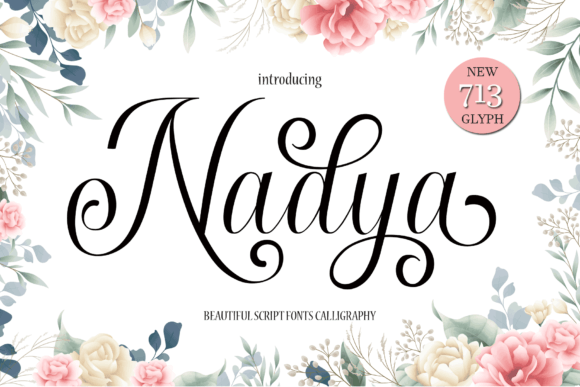
Step into the world of typography and unveil the beauty of Nadya Font, a captivating script font family destined to elevate your creative projects to remarkable heights. This elegant and classy handwritten font exudes an air of sophistication, making it the perfect choice for adding a touch of charm to your designs.
Nadya Font boasts an array of remarkable features that will ignite your imagination and inspire your creativity. Its superbly crafted characters dance across the page with effortless grace, captivating your audience with their refined beauty. Each letter is meticulously designed to ensure readability and visual appeal, allowing your words to shine in their full glory.
With Nadya Font, you have a versatile tool that seamlessly adapts to a multitude of design applications. Whether you're creating watermarks for your stunning photography, crafting personalized signatures, designing logos that leave a lasting impression, or adding a touch of elegance to quotes, album covers, and business cards, Nadya Font is your perfect companion.
Unleash your creativity and let Nadya Font transport you to a realm where words come alive. Its carefully crafted swashes and glyphs add an extra layer of artistry, allowing you to effortlessly create designs that exude elegance and sophistication. With its PUA encoding, accessing these embellishments is a breeze, ensuring a seamless and enjoyable design experience.
Nadya Font is not just a font; it's an invitation to elevate your work to the highest level of excellence. Embrace its timeless beauty and watch as your creative visions transform into captivating masterpieces. Let Nadya Font be your muse, guiding you towards design greatness.